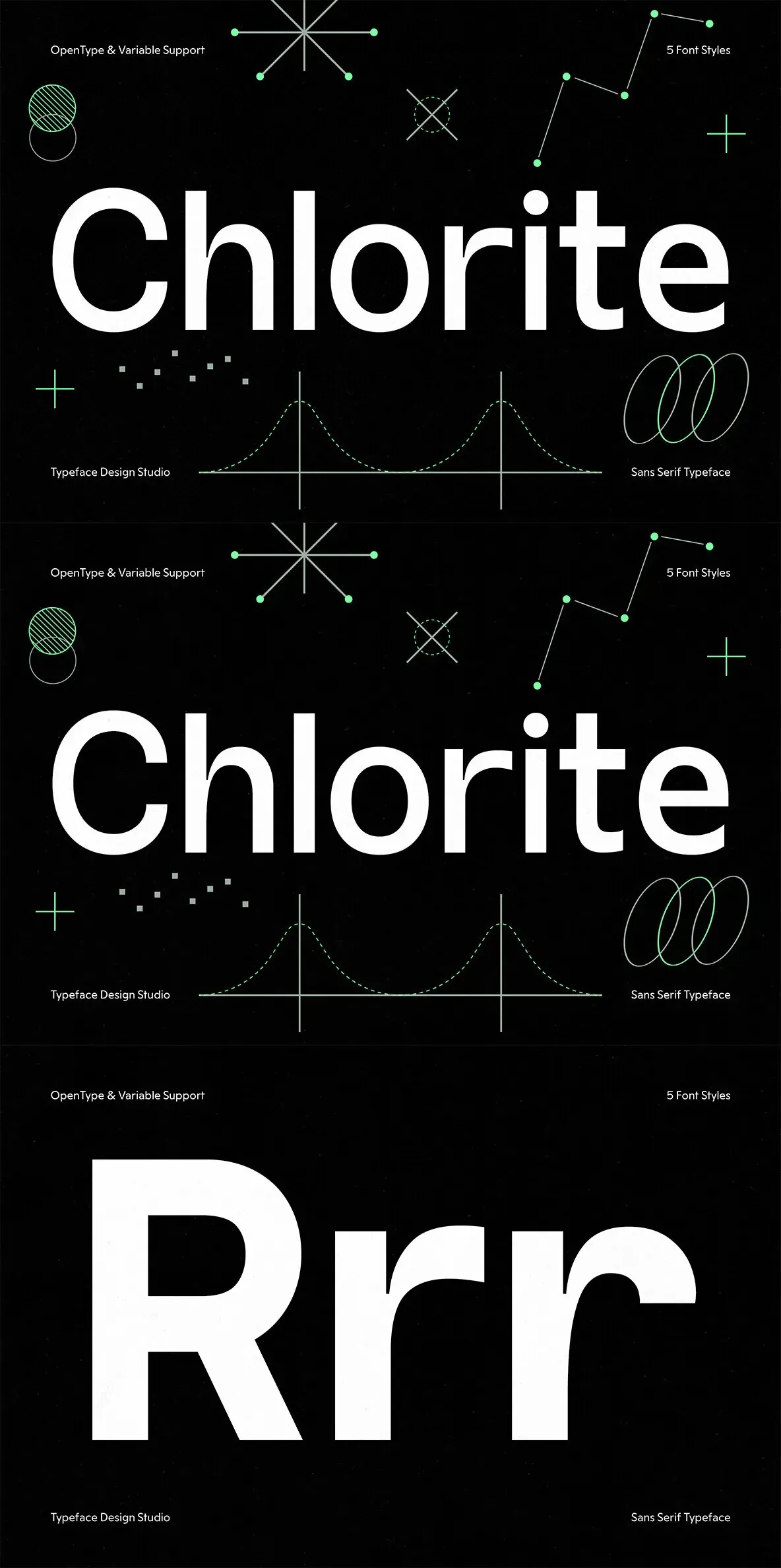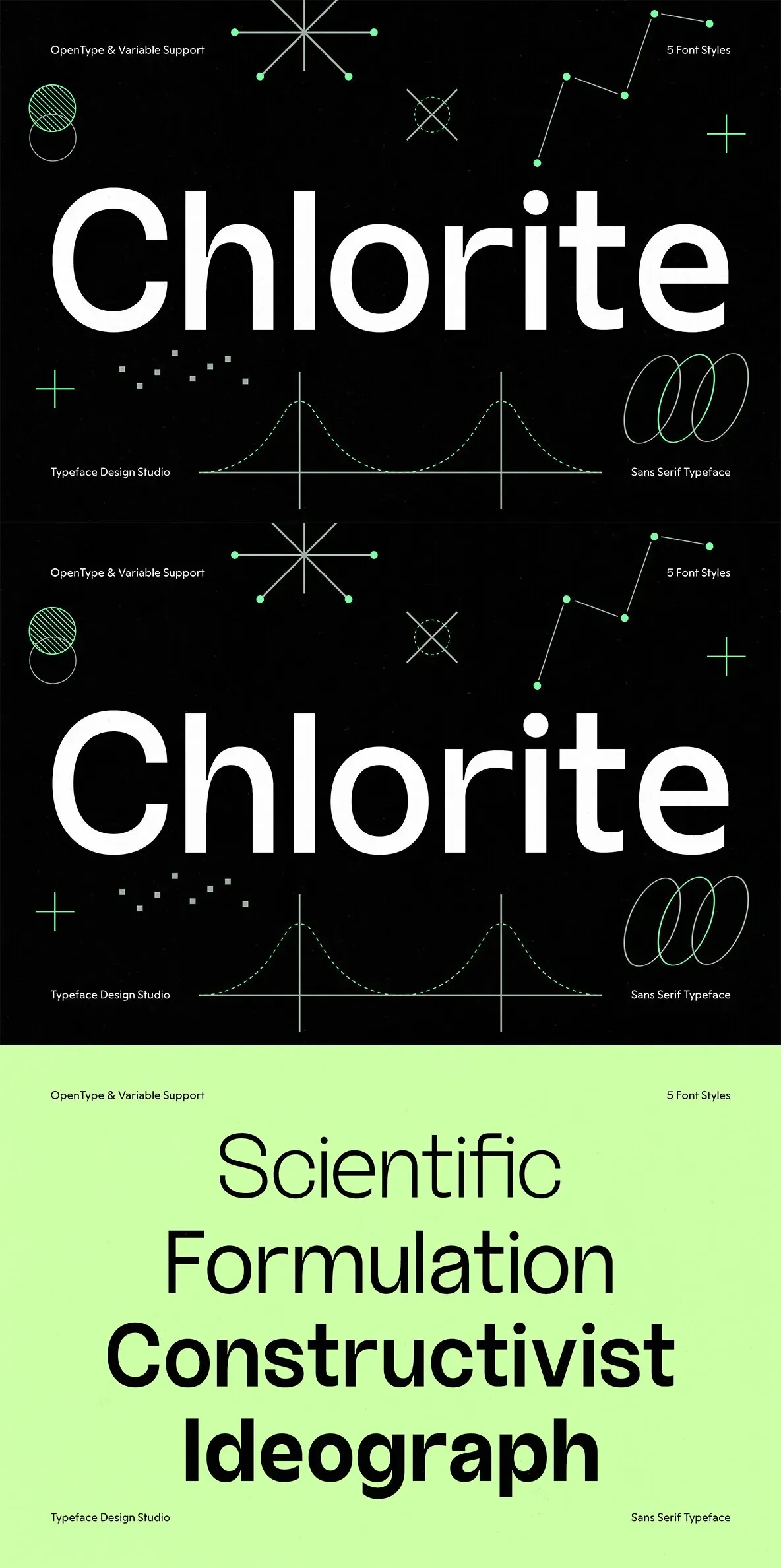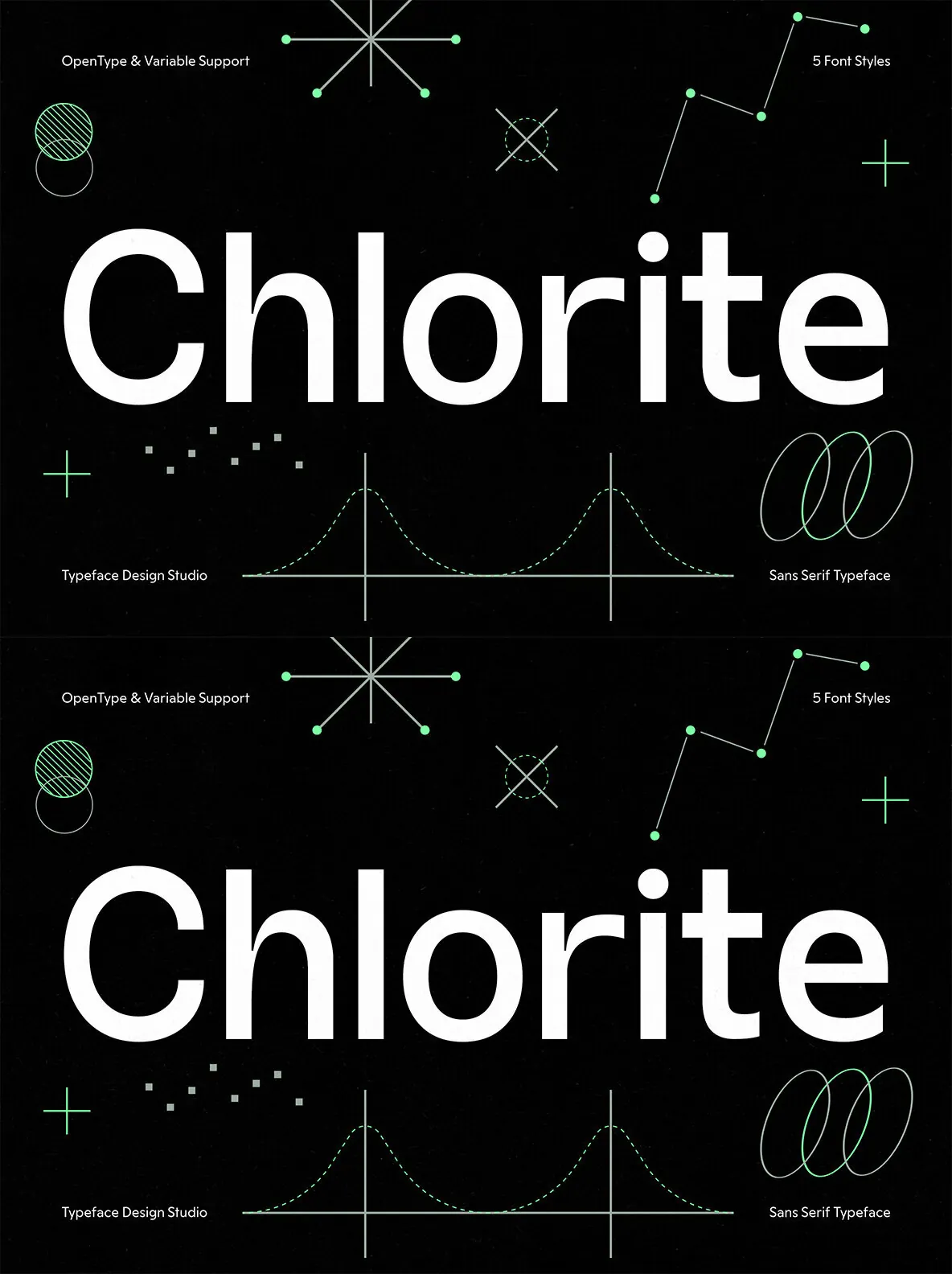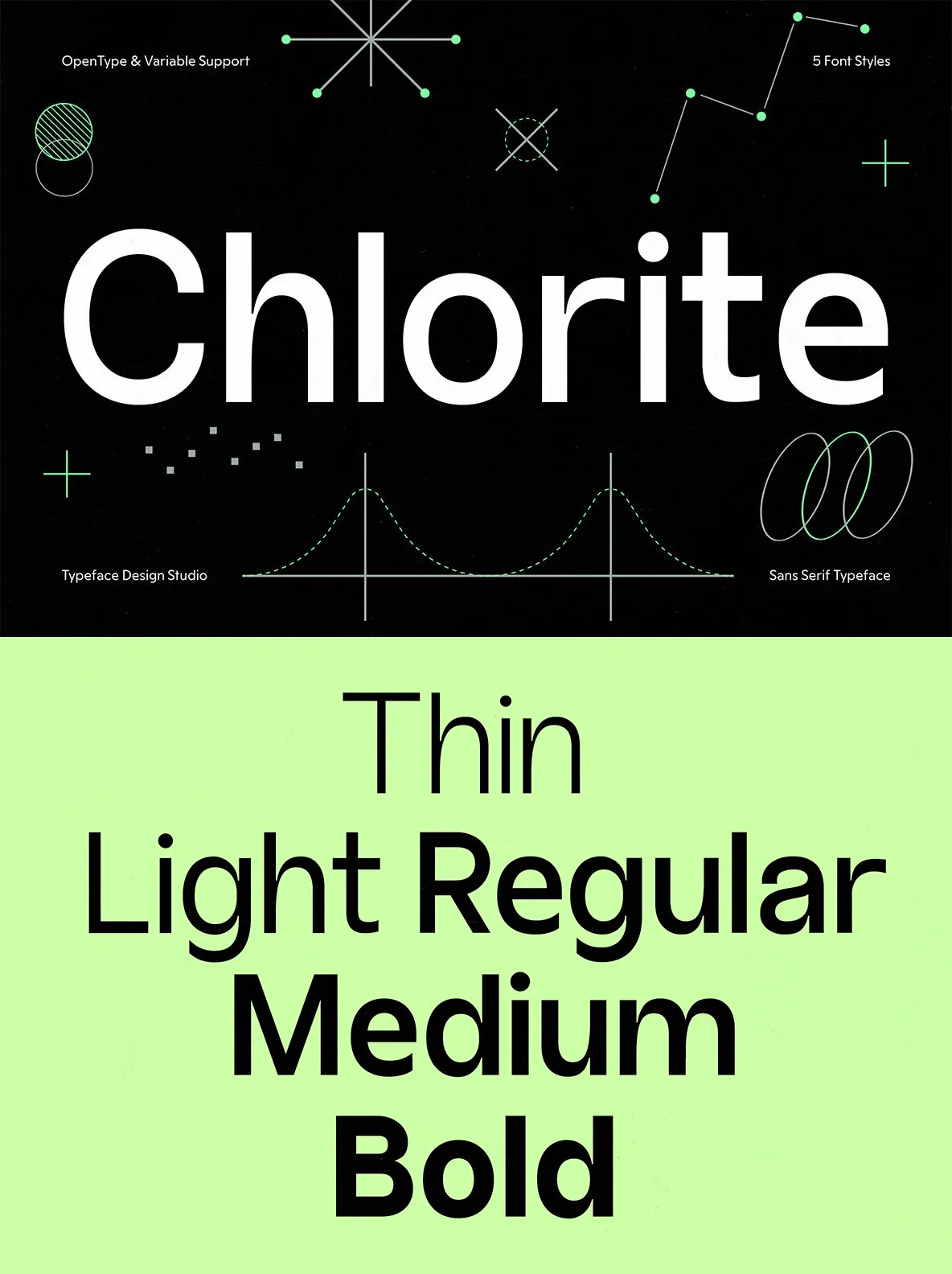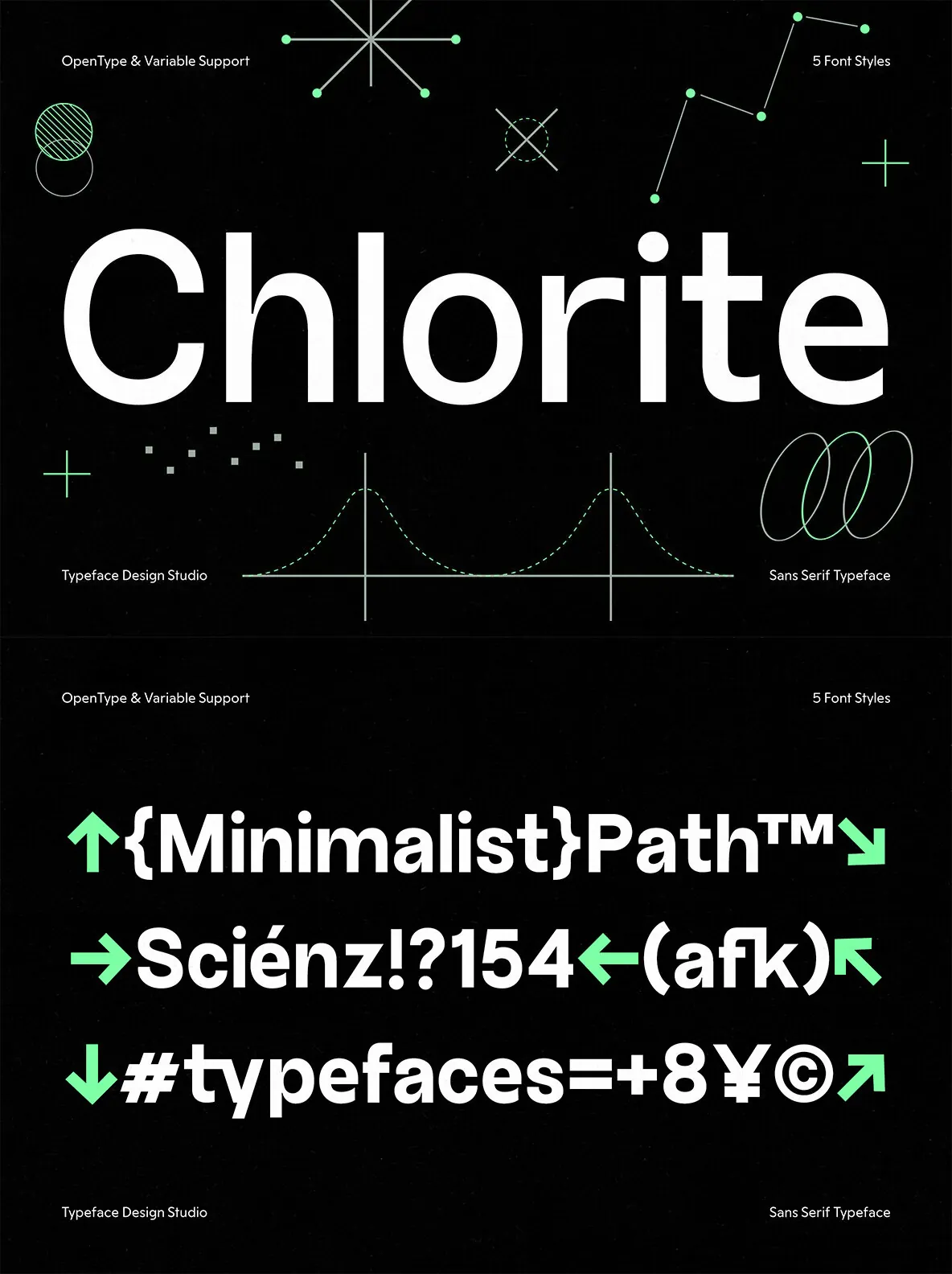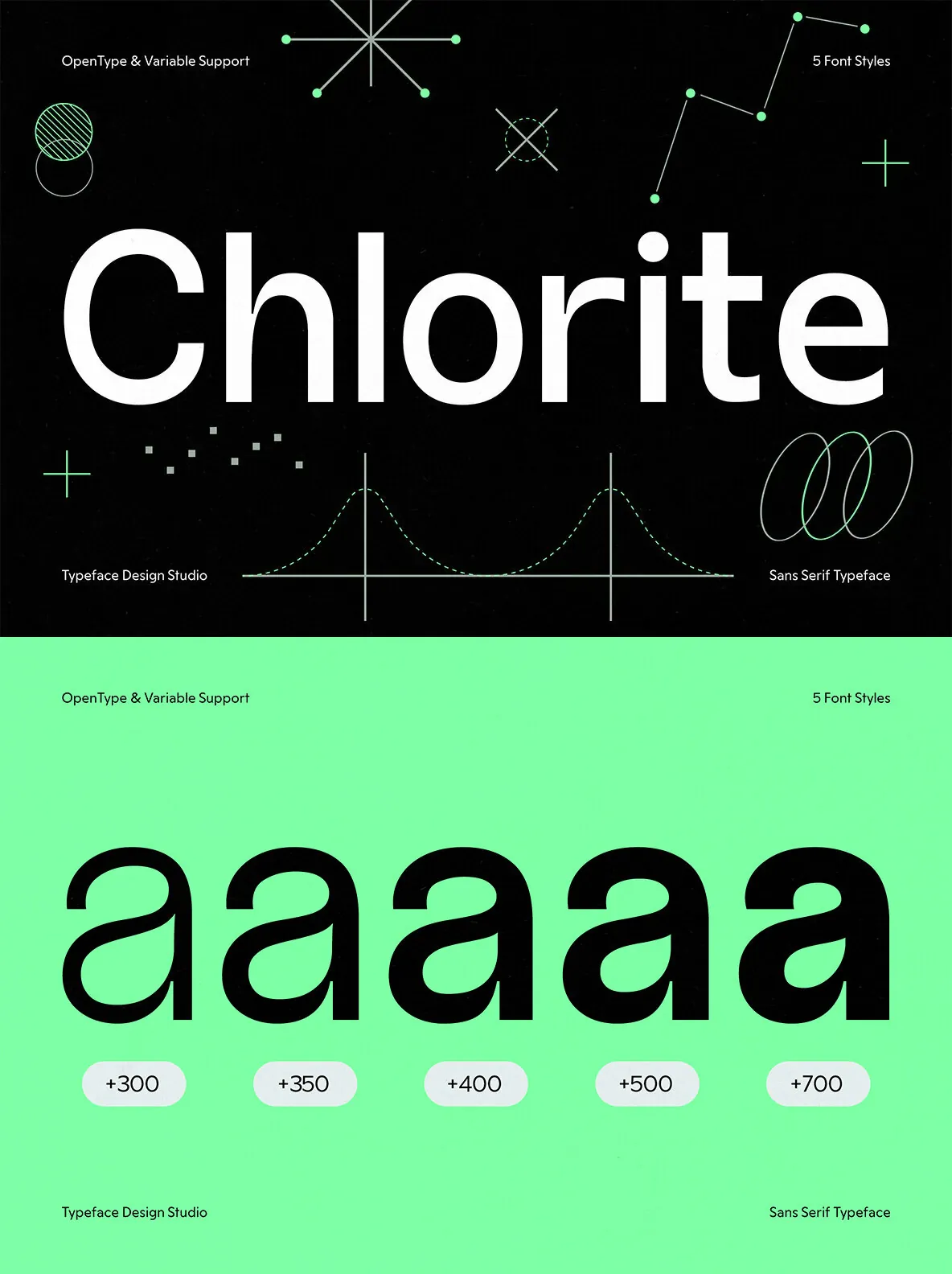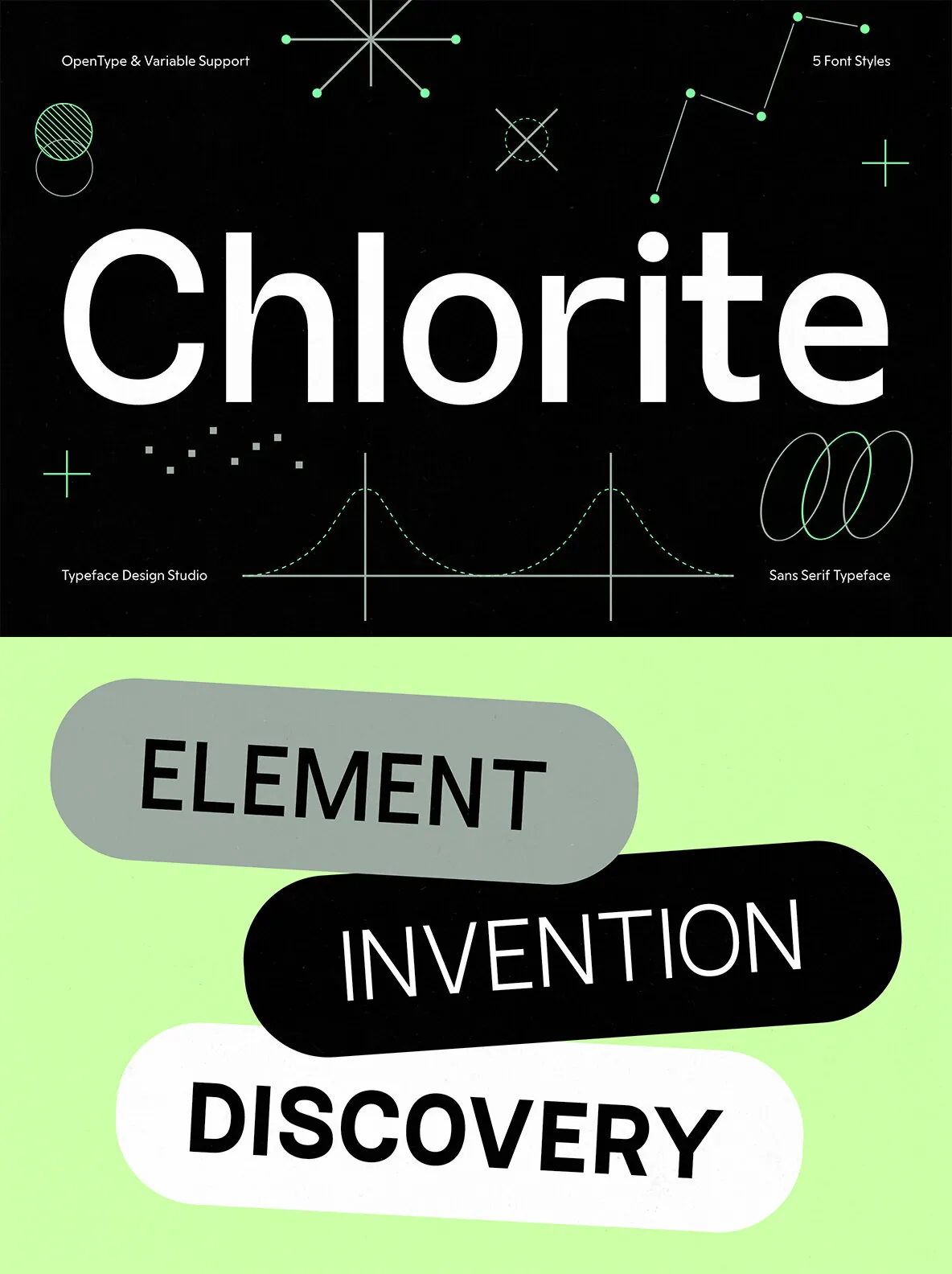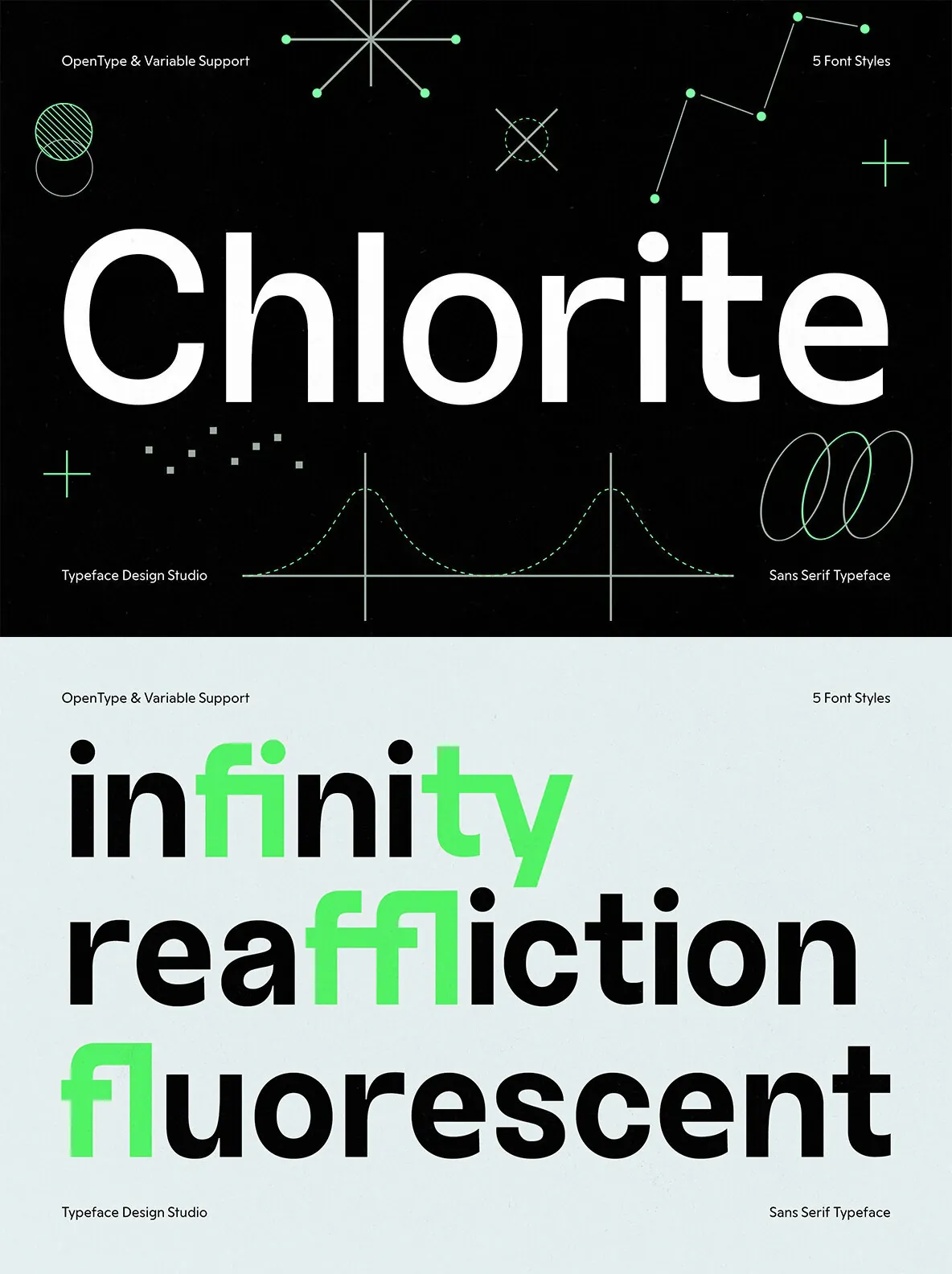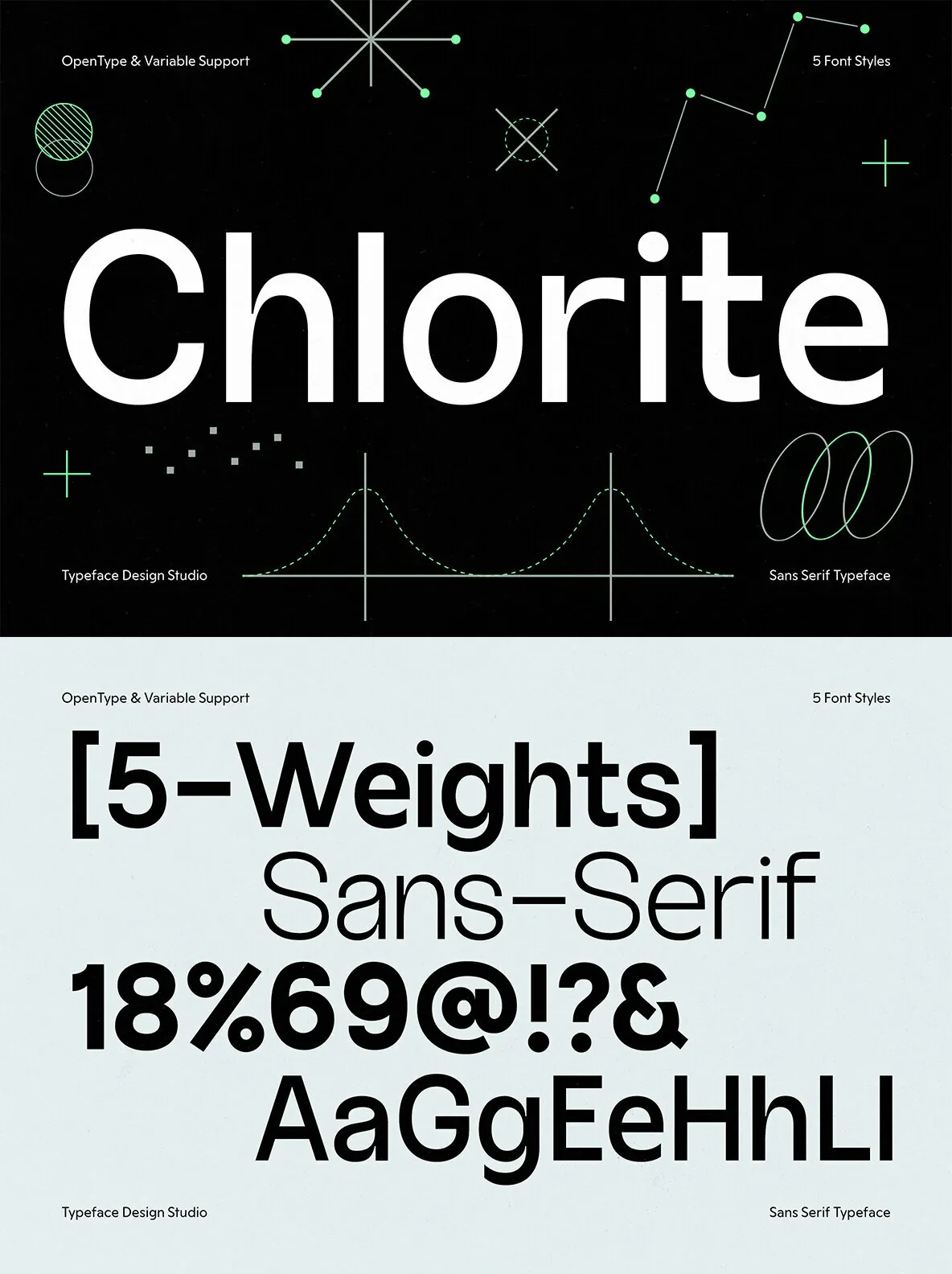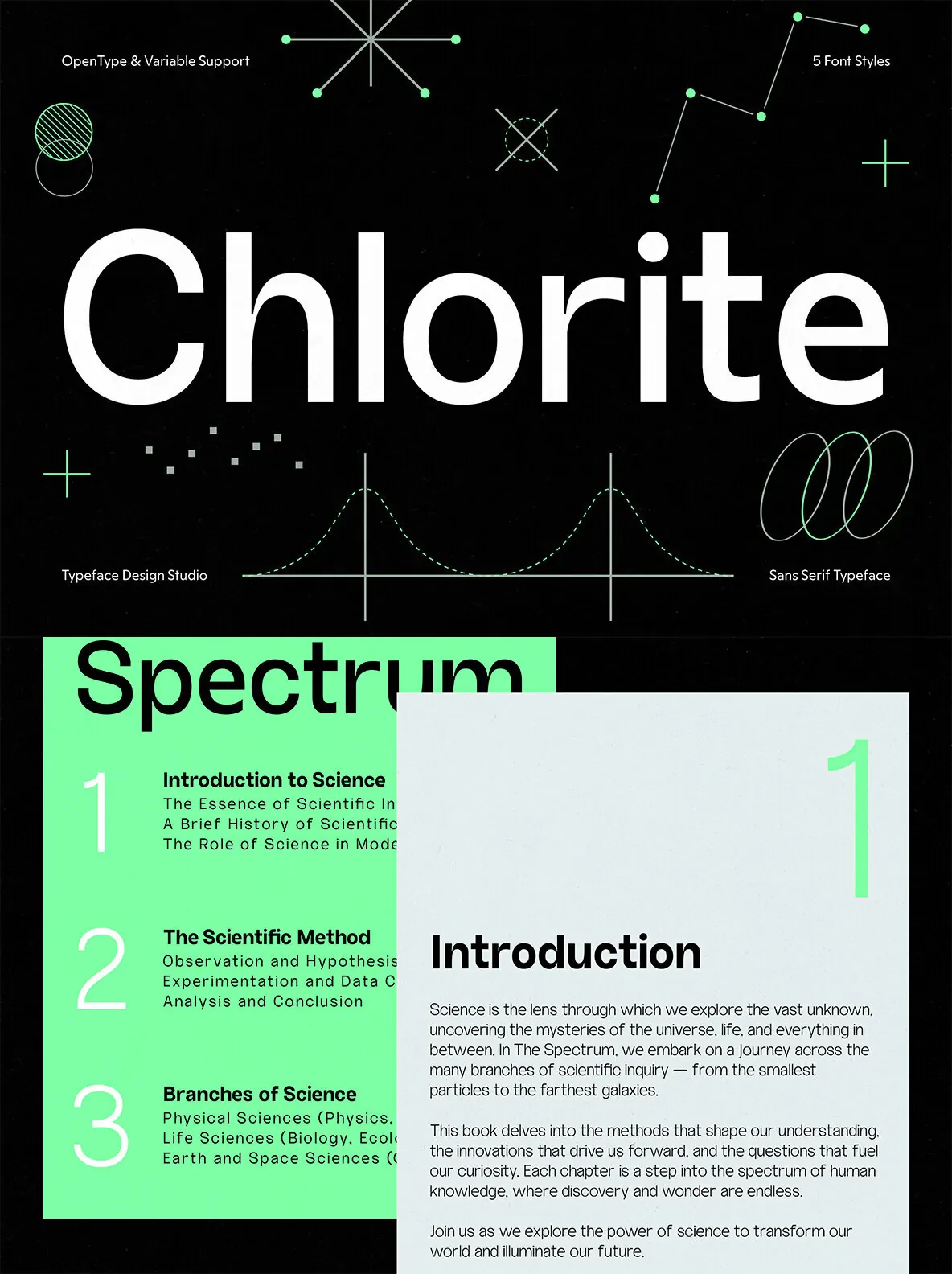
Chlorite: A Cost-Effective Choice for Contemporary Design
Chlorite is a versatile sans serif font family designed for modern professionals. Exclusively available at YouWorkForThem, it balances simplicity with subtle sophistication, making it a go-to choice for corporate branding, web design, and beyond.
Key Features of Chlorite:
Five Weights
: Ranging from light to bold for flexibility in design.
Variable Font Option
: Provides seamless scalability for responsive digital applications.
Extensive Glyph Set
: Nearly 400 characters, supporting multiple languages.
OpenType Features
: Includes alternates and a strong set of ligatures for creative adaptability.
Distinctive Design Details
: Unique lowercase
f
and
y
, and a reimagined uppercase
Q
that enhance its contemporary aesthetic.
Designed for the Digital Age
Chlorite’s geometric precision and modern edge make it ideal for digital-first projects, from user interfaces to marketing materials. Its clean lines ensure clarity, while its thoughtful details set it apart from generic sans serifs.